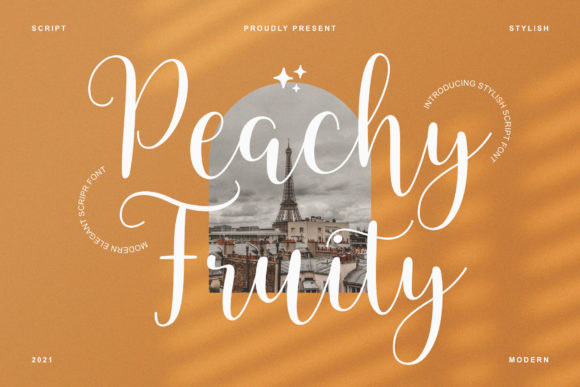
Peachy Fruity Font
Unleash your creativity and make a lasting impression with Peachy Fruity Font, a stunning script font that oozes charm and sophistication. Experience the joy of crafting captivating designs that leave an unforgettable mark.
Step into a world of elegance and grace with Peachy Fruity Font, the perfect choice for creating designs that speak to the heart. Whether you're designing wedding invitations, social media posts, or business documents, this font will elevate your projects to new heights.
With its enchanting curves and playful personality, Peachy Fruity Font will captivate your audience and leave them wanting more. Its versatility knows no bounds, allowing you to create designs that are both timeless and utterly unique.
Imagine the possibilities:
- Craft heartfelt wedding invitations that reflect the love and joy of your special day.
- Create social media posts that pop and engage your followers, leaving them eager for more.
- Design business documents that exude professionalism and leave a lasting impression on clients and colleagues alike.
- Elevate your branding with a logo that truly embodies the essence of your business.
- Add a touch of charm to your personal projects, creating cards, shirts, and watermarks that reflect your unique style.
The Peachy Fruity Font is more than just a font; it's an invitation to unleash your creativity and express yourself in ways you never thought possible. Join the countless designers who have fallen in love with this font and witnessed the transformation it brings to their work.
Don't settle for ordinary fonts that blend into the background. Choose Peachy Fruity Font and embark on a journey of design excellence. Let your imagination soar and create projects that leave a lasting impression on the world.